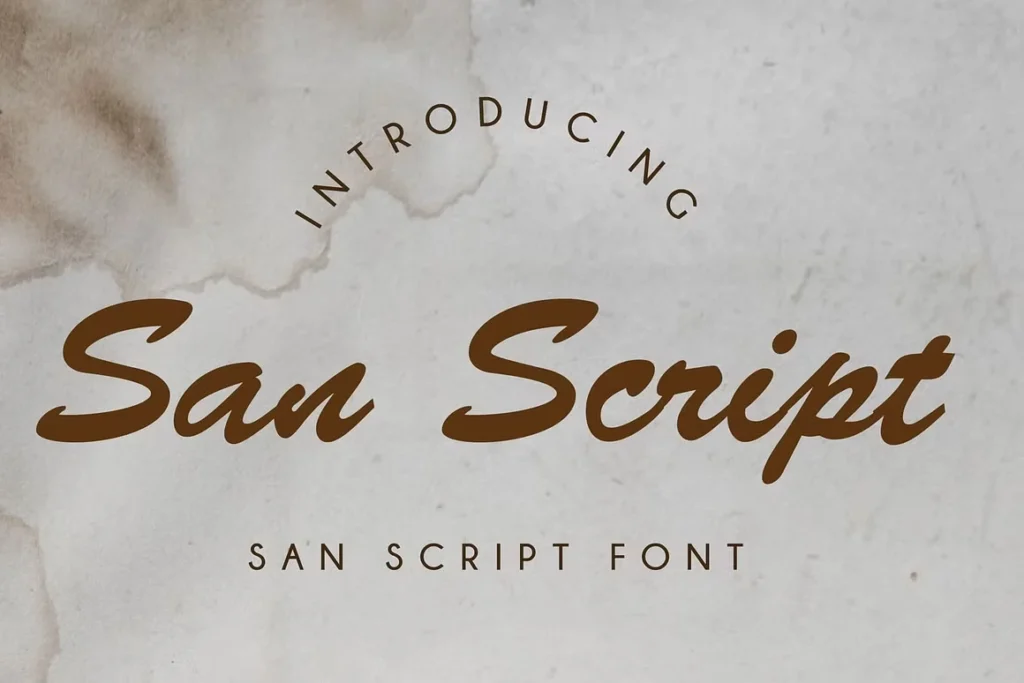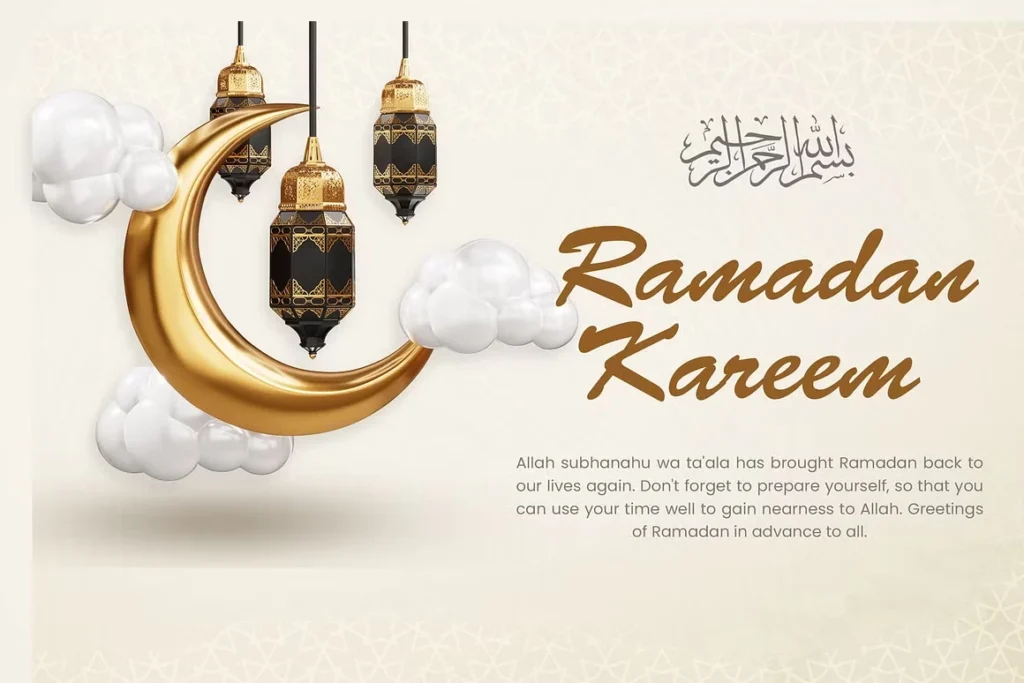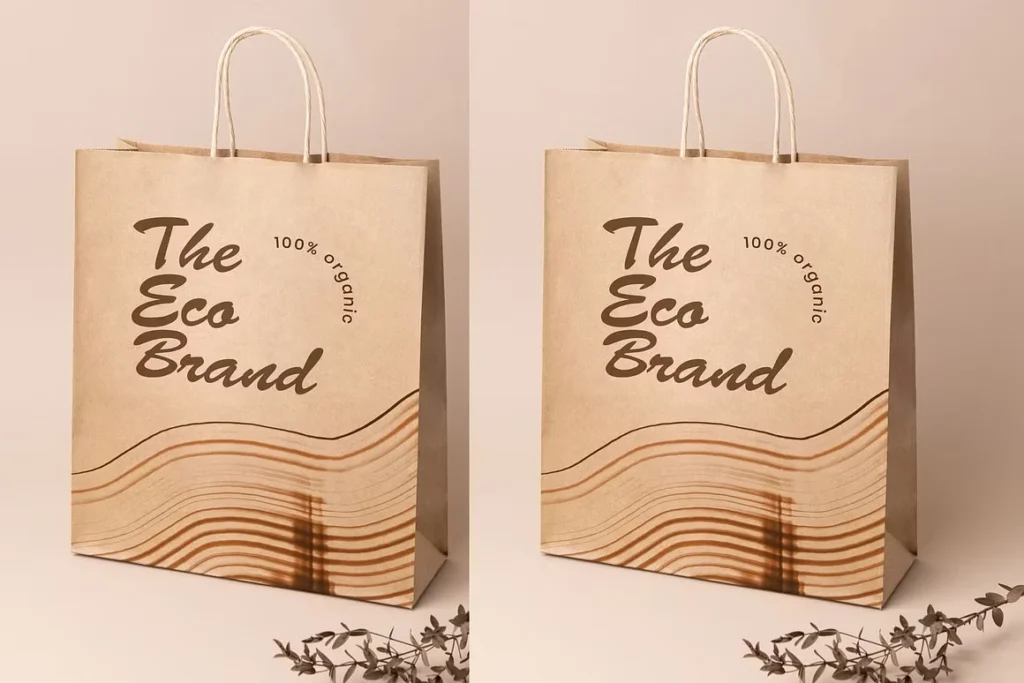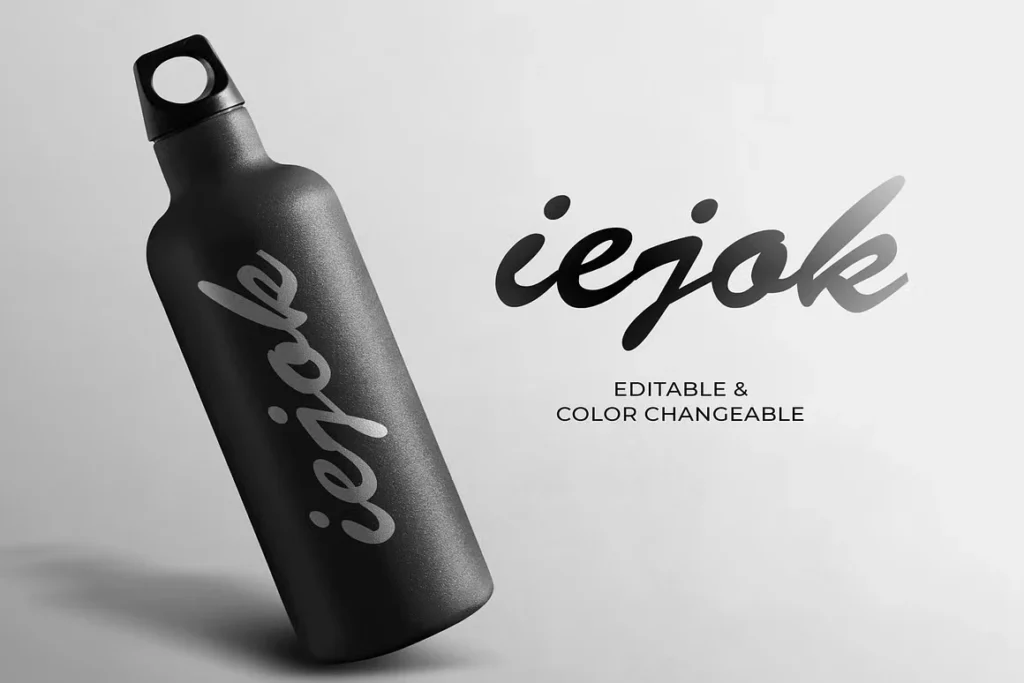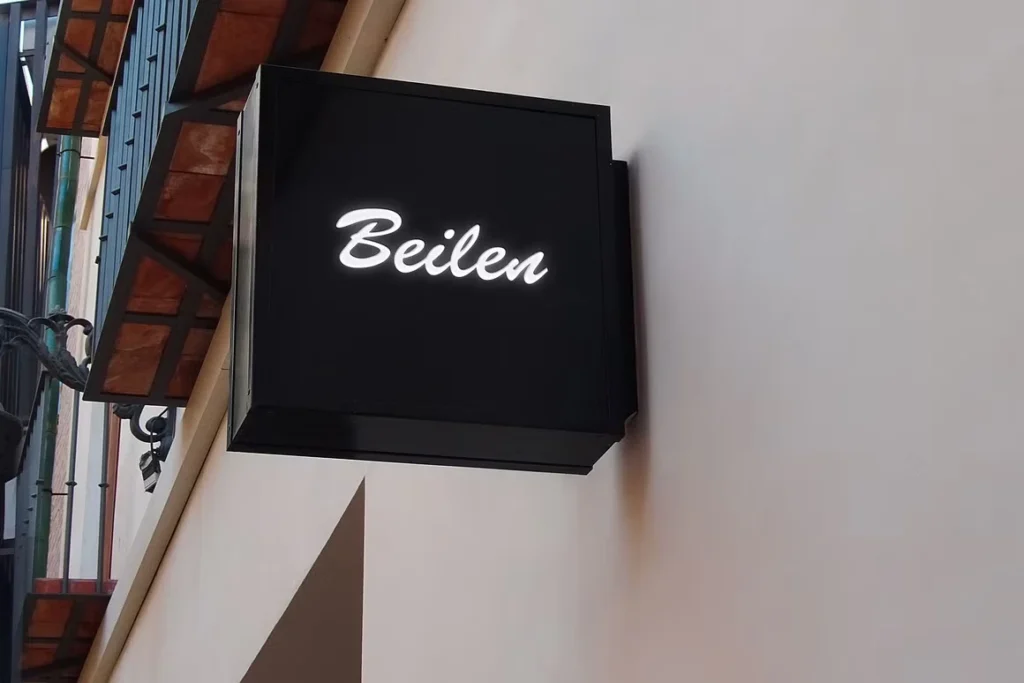
About San Script Font
I stumbled upon San Script Font while hunting for the perfect typeface for a luxury skincare brand project last month. As a typographer and graphic designer with over eight years in the field, I’m pretty picky about my font selections. This handwritten brush script caught my eye immediately on MyFonts while searching for something with personality yet professional enough for high-end packaging.
I’ve since used it on three client projects—the skincare line, a boutique coffee shop menu, and most recently, wedding invitation suites. The results have been fantastic, with clients specifically commenting on the typography. If you’re looking for authentic handwriting with polish, you’ll want to read on.
The Font & Designer Story
San Script Font comes from the creative mind of Reza Studio, a boutique type foundry known for balancing artistic expression with functional design. This particular typeface stands out in their collection for its distinctive balance of casual elegance and readability—a combination that’s surprisingly rare in the script font world.
The designer created San Script as a modern take on traditional brush lettering, incorporating subtle irregularities that give it an authentic handwritten feel without sacrificing legibility. What makes this font special is its attention to detail in the connections between letters—they flow naturally without the awkward joins you often see in lesser script fonts.
Reza developed San Script after studying historical calligraphy techniques and modern digital needs. The resulting typeface carries visual weight that works across various sizes, from large display text down to smaller applications. Each character shows thoughtful craftsmanship, with consistent stroke weights and carefully balanced negative space. Unlike many script fonts that feel mechanical, San Script maintains the human touch that makes handwriting so appealing while still functioning perfectly in digital environments.
Features of San Script Font
San Script shines with its extensive character set that includes hundreds of glyphs and alternate characters. This opentype font gives designers tremendous flexibility—you can create text that truly looks handwritten by mixing different versions of each letter throughout your text.
The font includes special ligatures that automatically create natural connections between certain letter combinations. These thoughtful touches elevate typography from basic text to artistic expression. When you’re working with product packaging or logos where every detail matters, these features become invaluable.
What really sets San Script apart is its stroke variation. Unlike fonts with uniform line thickness, this typeface mimics actual brush strokes with thicker downstrokes and lighter upstrokes, creating dynamic contrast that catches the eye. This makes it particularly effective for headlines and titles where you want impact.
The font performs exceptionally well across platforms—whether used in print materials, websites, or social media graphics. It renders clearly even at smaller sizes, a rare quality for script fonts that often lose legibility when reduced. San Script also includes smart contextual alternates that automatically adjust how letters connect based on their position in words, solving a common problem with digital script fonts where connections can look unnatural.
San Script Font truly shines in branding projects that need a personal, creative touch without sacrificing professionalism. I’ve found it works brilliantly for product packaging—especially in food, beauty, and lifestyle industries where consumers connect with authentic, handmade qualities. The font communicates care and attention to detail, perfect for artisanal products.
For logo design, San Script offers the perfect balance between uniqueness and legibility. Many clients want logos that stand out while remaining instantly recognizable, and this font delivers exactly that. The varying stroke weights create visual interest that works well even when scaled down for business cards or up for signage.
Wedding stationery and event invitations are another sweet spot for this font. The elegant flourishes and natural flow create a sense of occasion without looking overly formal or stuffy. It pairs beautifully with clean sans serif fonts for information text.
Digital applications shouldn’t be overlooked either. San Script renders beautifully on websites as heading text that captures attention. Social media graphics gain instant personality when this font is applied to quotes or key messages. The typeface even works surprisingly well in longer display text for magazine layouts or editorial design where you need to create visual hierarchy without losing readability.